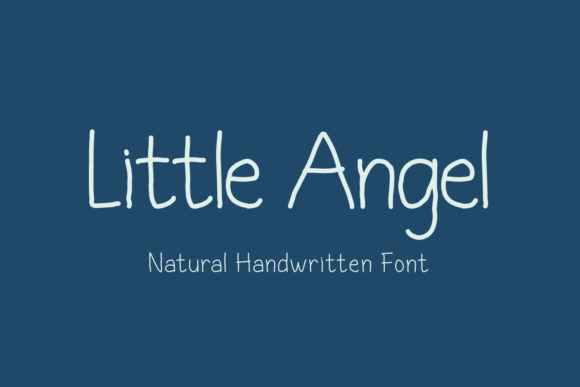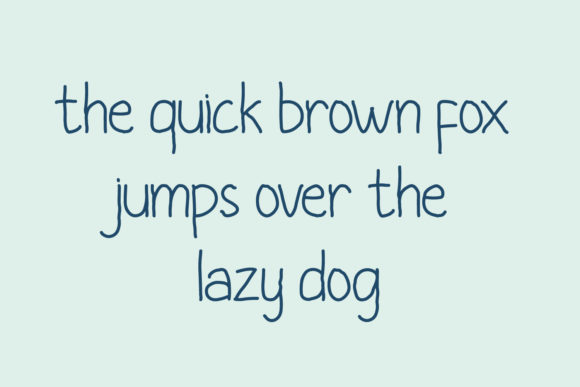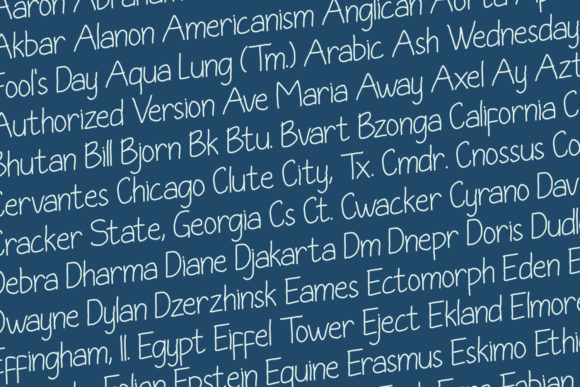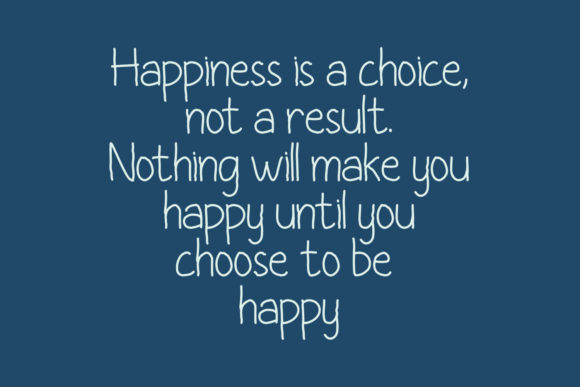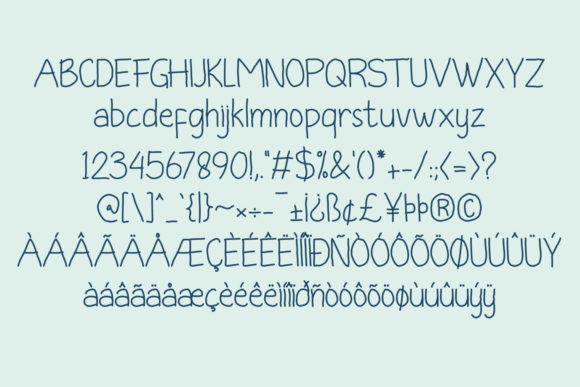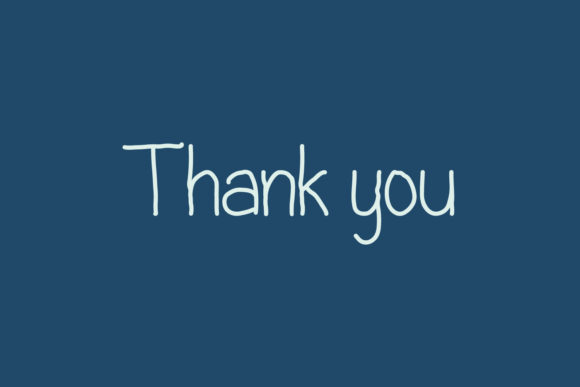
Little Angel Font
About Little Angel Font
Little Angel is a sweet and innocent handwritten font with a bold feel. It will turn any design project into an eye-catcher!